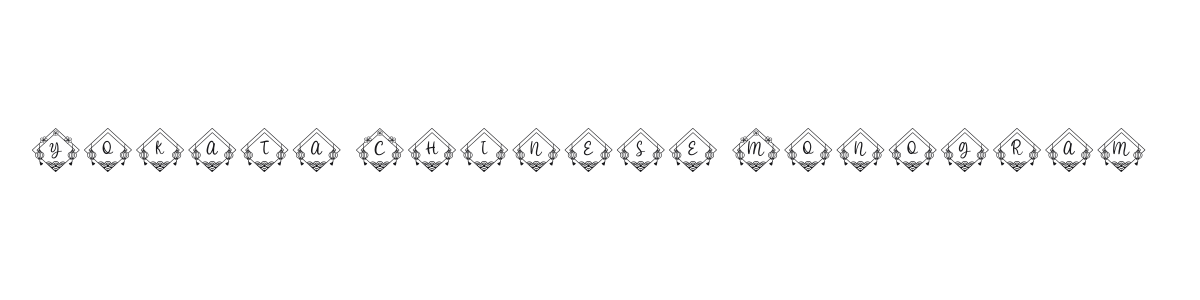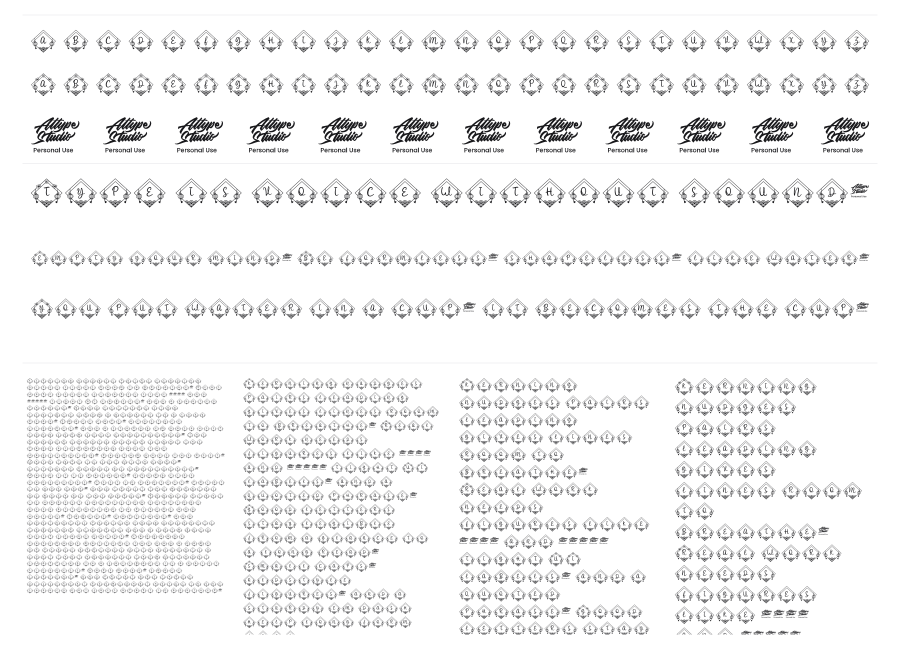
Yokata Chinese Monogram
Yokata Chinese Monogram wraps every letter inside a diamond-shaped ornamental frame trimmed with delicate corner flourishes, channeling Chinese New Year aesthetics into a versatile monogram system. The contrast between the geometric outline frame and the flowing script interior gives it a layered, seal-like quality. It suits celebration graphics, festive packaging, and event branding where a sense of ceremonial occasion is the goal.